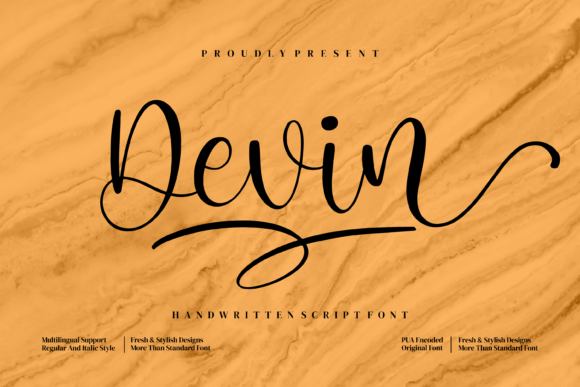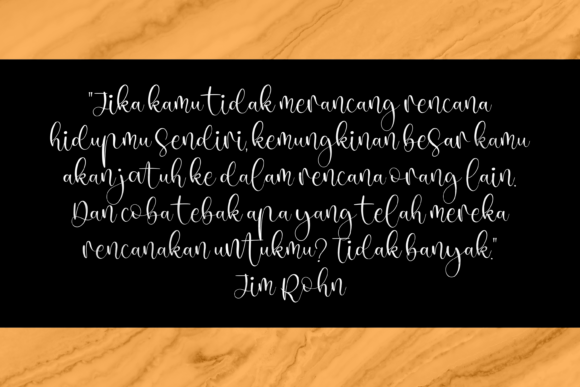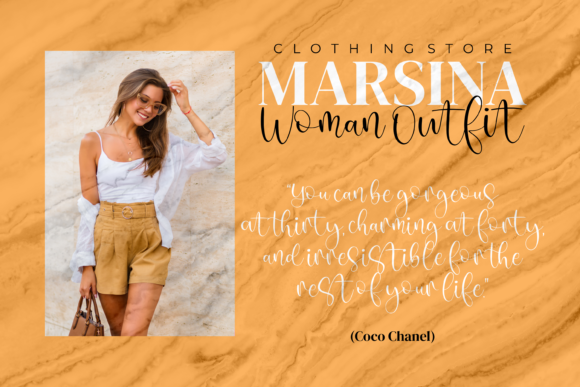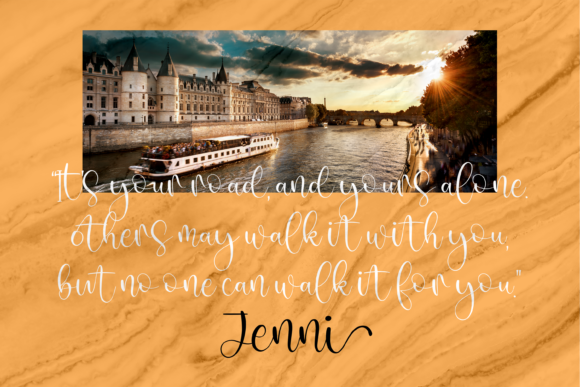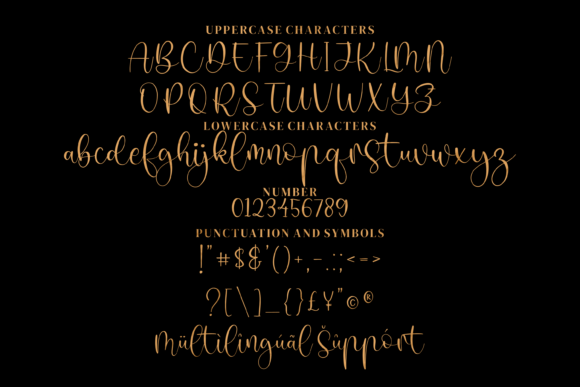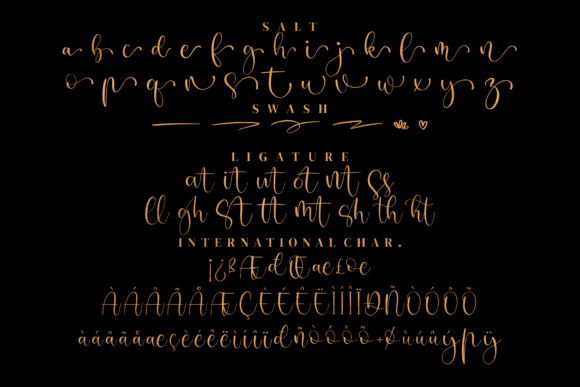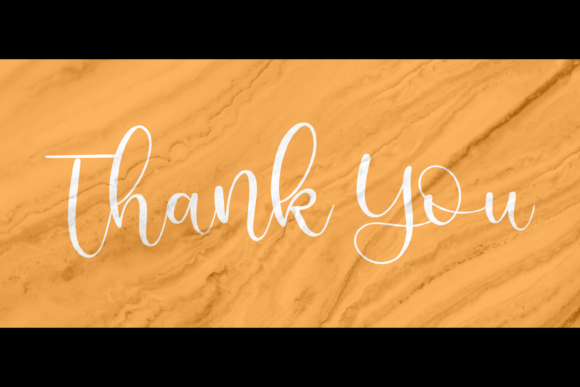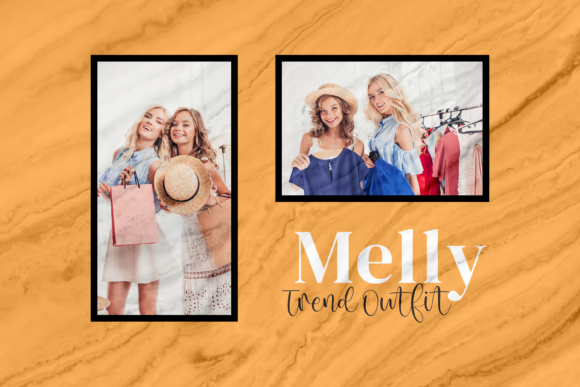
Devin Font
About Devin Font
Devin is a sweet and cursive handwritten font. This gentle font will look gorgeous on a variety of design ideas. Devin is PUA encoded which means you can access all of the glyphs and swashes with ease!